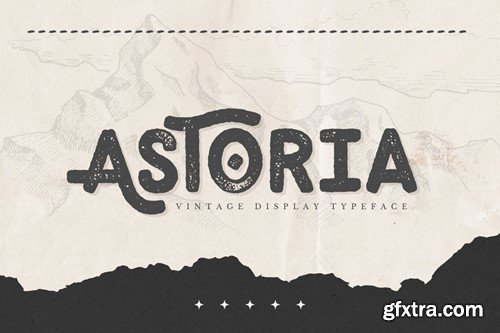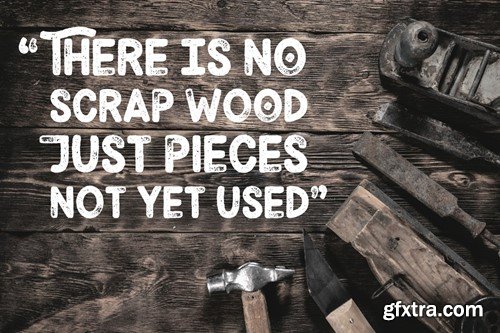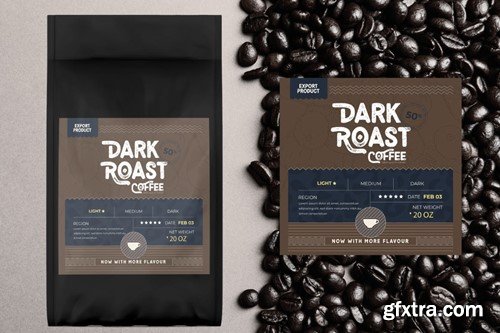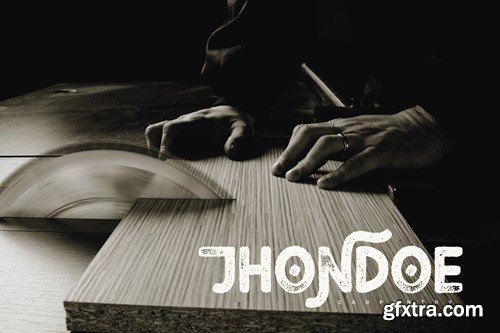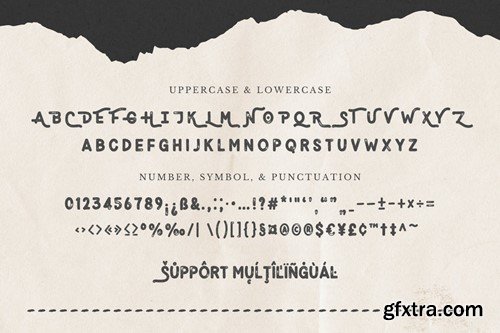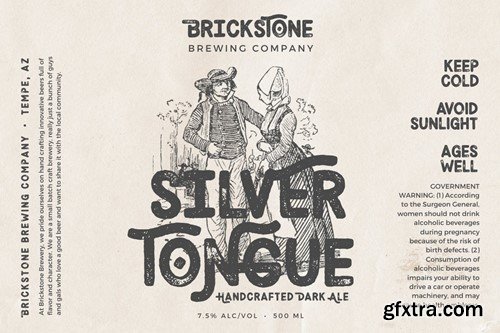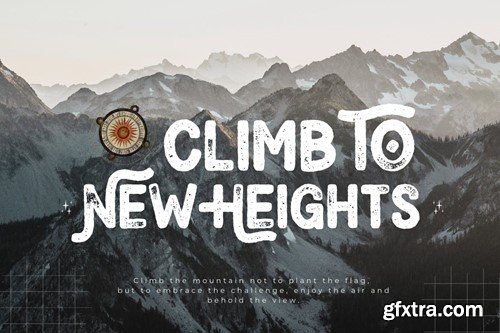
阿斯蒂亚 - 黑色经典展示字体 79FGYU4
Astoria Vintage Display Typeface is a charming and versatile font that easily captures the essence of a bygone era. Alternate on uppercase which makes it very easy to use. With its rich texture and vintage style, it is perfect for vintage-themed designs, harkening back to a time of old-world elegance and adventure, whether you're working on packaging, branding, or any design project that requires a touch of vintage style, Astoria delivers style and authenticity. Additionally, this font offers comprehensive multilingual support, ensuring your message can be conveyed effectively to a global audience. With Astoria, you can evoke the past while creating a modern design that is visually striking and stands out in the contemporary design landscape. Features Download Files (.zip) Thank you a million times for downloading and using this font for your projects. Enjoy this font and happy creating!